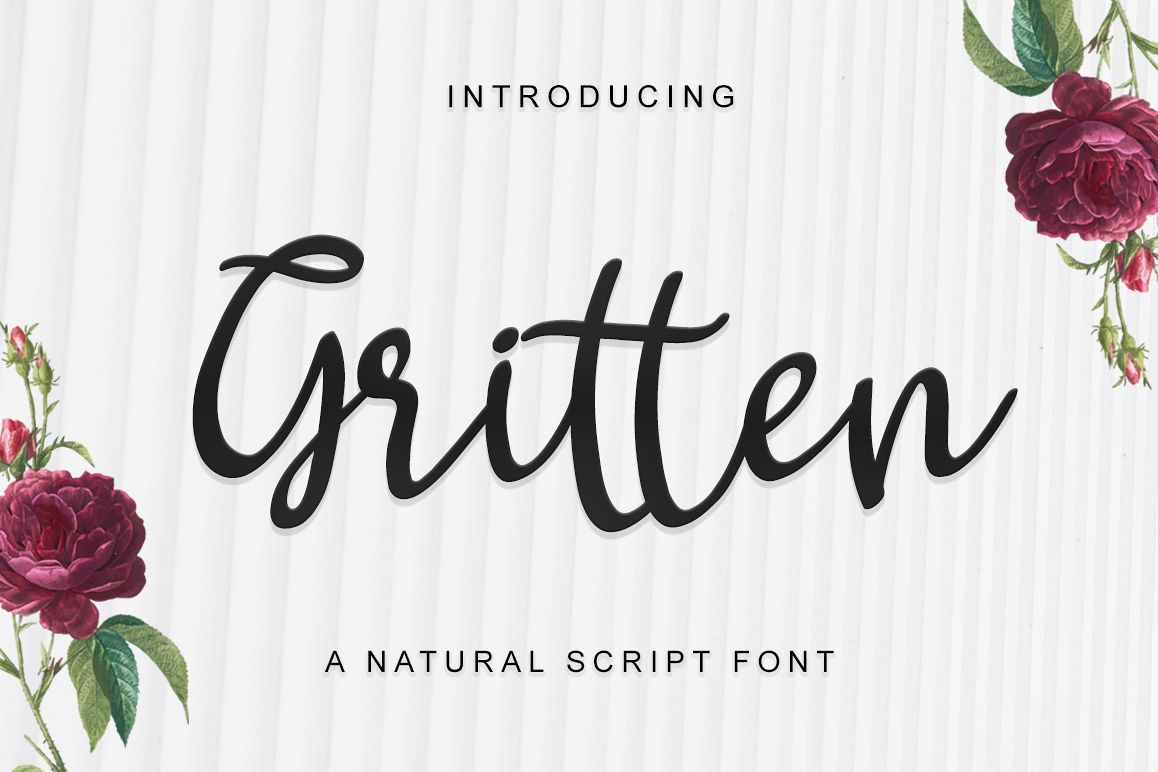
Introducing the elegant new Gritten Font! For those of you who are needing a touch of elegance and modernity for your designs, this font was created for you!
Gritten has the added bonus of having 'multiple personalities'! It has 3 sets of extra alternate lowercase letters, which allow you to create different feels for different projects.
Uppercase Lowercase
Number & Symbol
Alternates for each characters
Multilingual
277 Glyps
More 70 Alternate